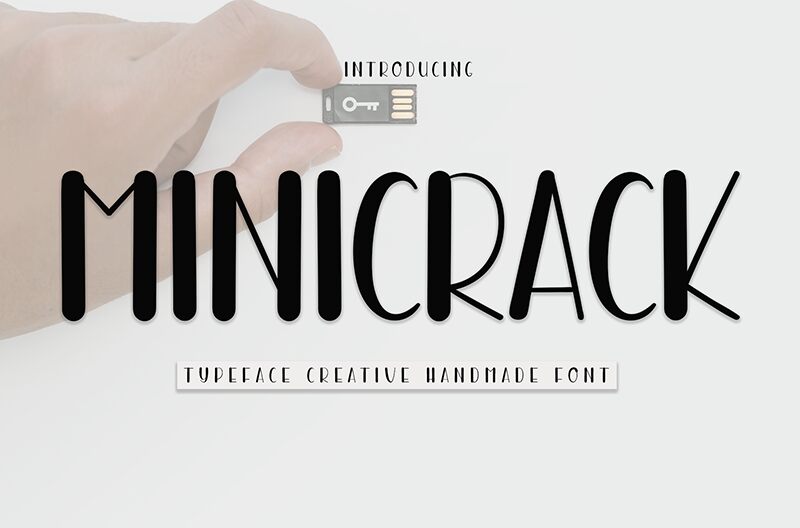
Minicrack
Minicrack font is a display font designed by Andi Moz. This comic typeface with its condensed width can add a casual sense to your style when added to your projects. It’s lightweight, has round geometric shapes, and combines both retro-futuristic and art deco influences.
Use this free minimal unique font for book covers, t-shirt typography designs, movie posters, logos, branding purposes, or packaging design. Its eye-striking letters make it perfect for invitations of themed events whether digital or printed. Minicrack could be used even in advertisements like billboards and magazines among other things.